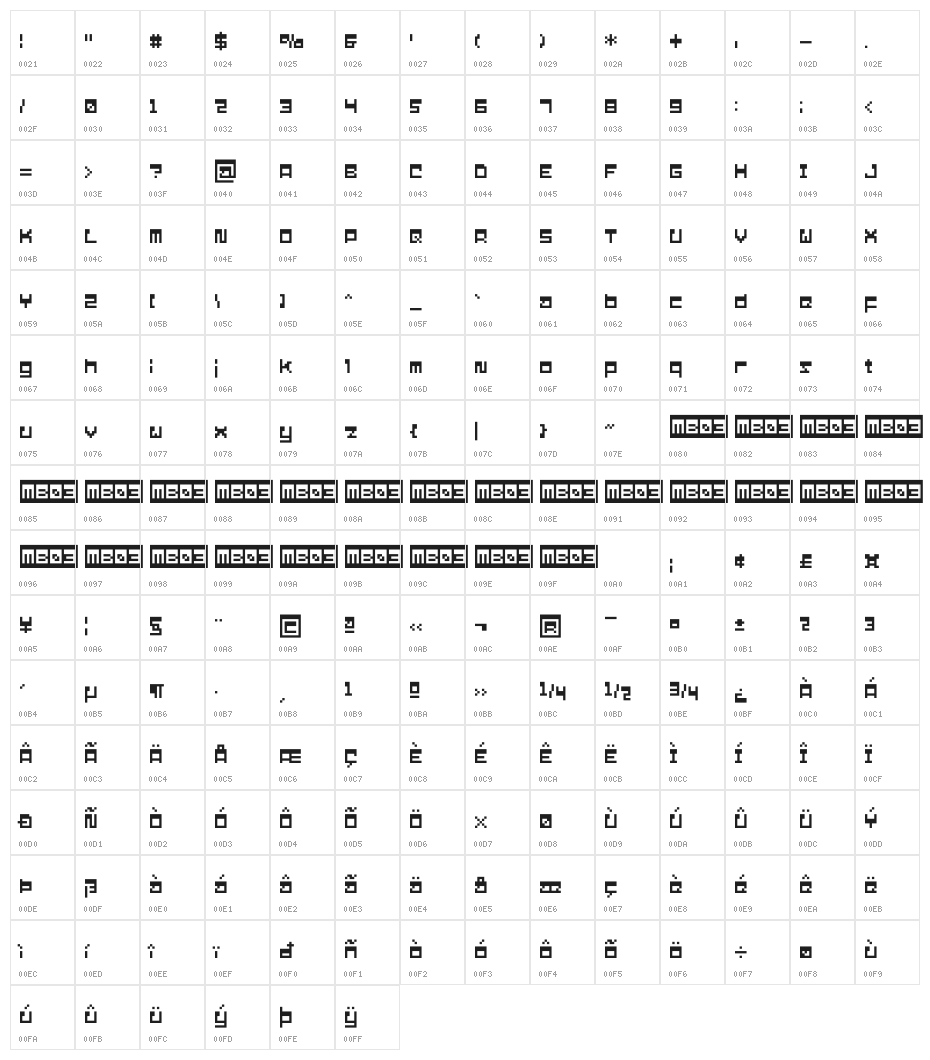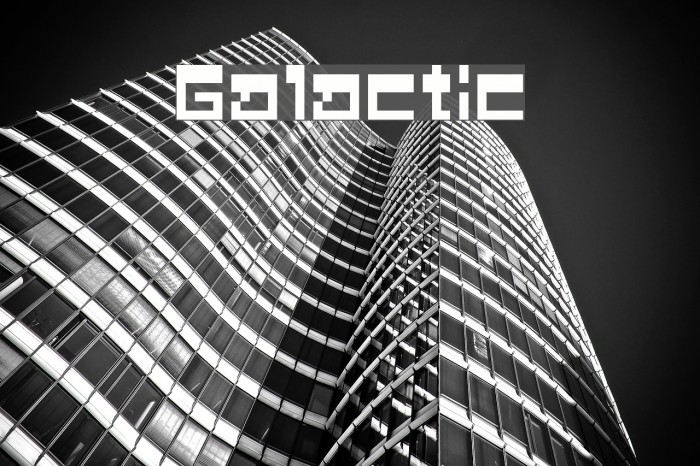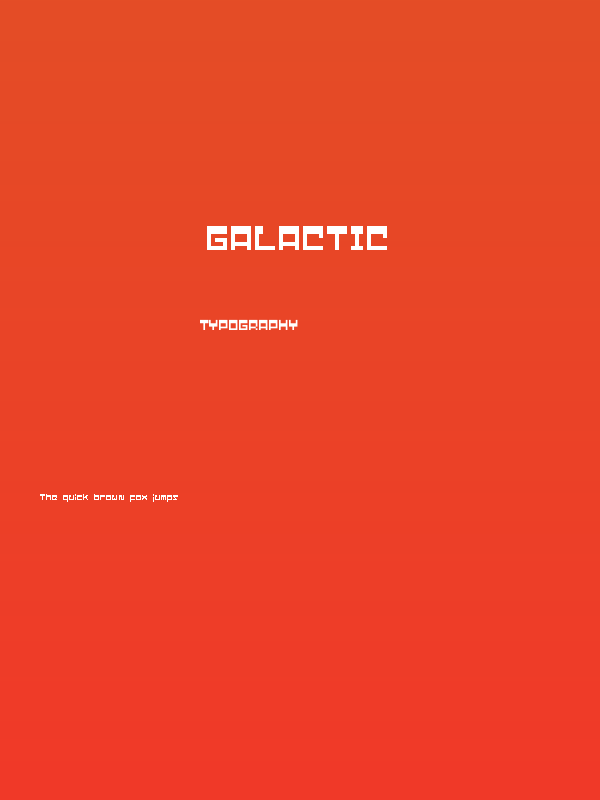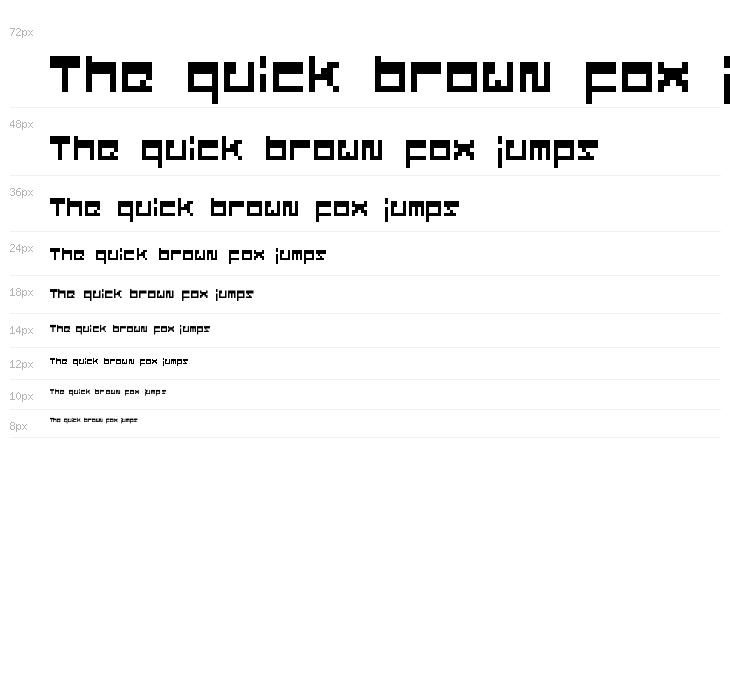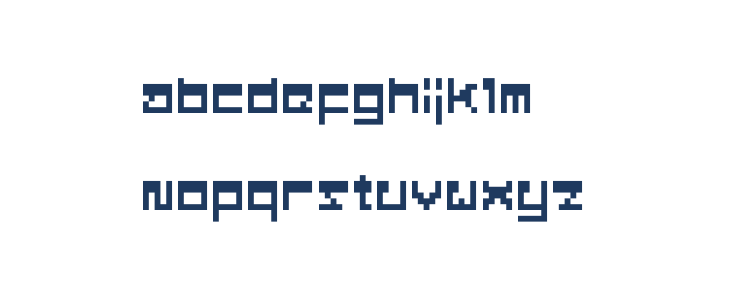
Galactic Font
Galactic Description
This font features a bold, geometric design with a distinctly futuristic and digital aesthetic. The characters are constructed with sharp, angular lines and a blocky structure, reminiscent of pixel art or early digital displays. The uppercase and lowercase letters maintain a consistent height, contributing to a uniform appearance. The numerals and special characters follow the same design principles, ensuring cohesion across all elements. This font's style is both modern and retro, making it versatile for various creative applications.
| Proposed Projects | Ideal for video game titles, tech-themed posters, digital art projects, and sci-fi branding. |